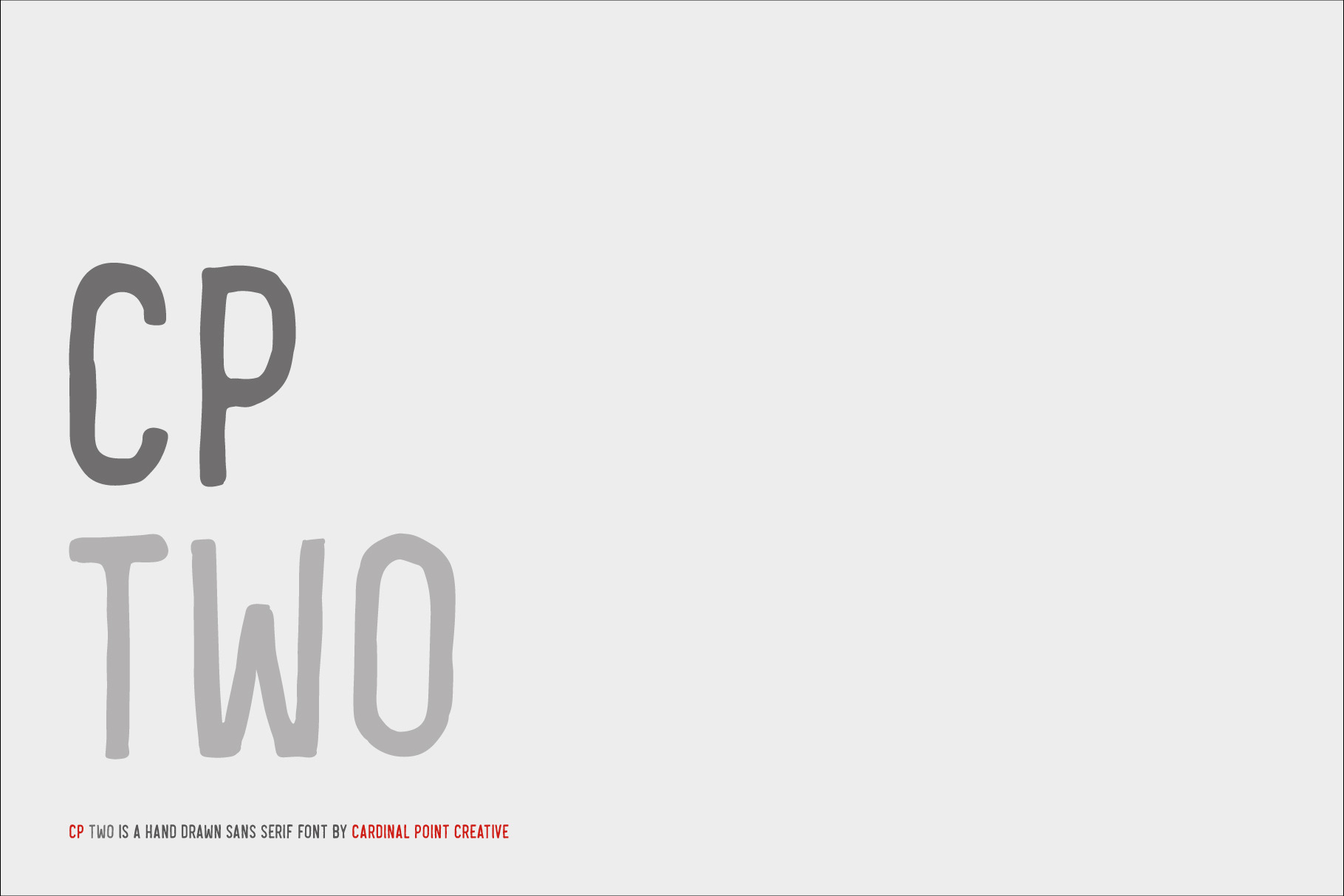
CP TWO Hand Drawn Sans Serif Font
The CP TWO font has been created to use with branding, logo design, web design and so much more...
This font is 100% hand drawn and then converted to vector for print and web use. The hand drawn glyphs are perfect for creating a classic vintage style for your design work.